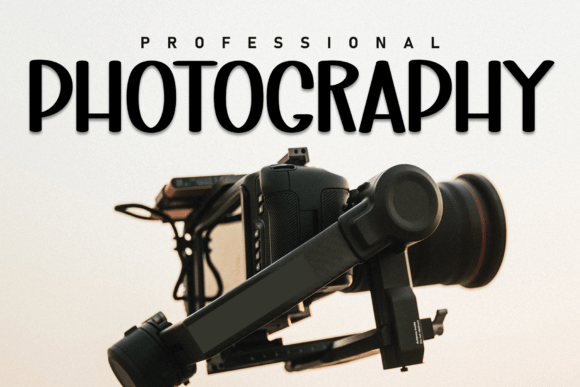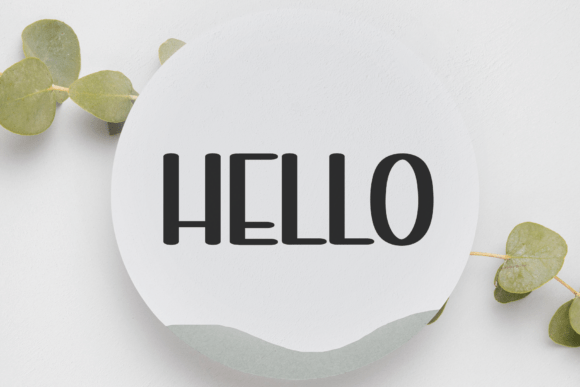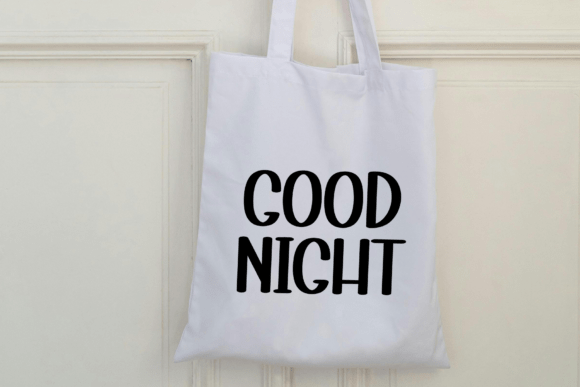
Banana Farmhouse Font
Banana Farmhouse is a handwritten font that looks like it was drawn with a marker. Having a relaxed and sporty feel, it is very suitable for branding, logos, wedding supplies, greeting cards, fashion, lookbooks, marketing promotions, and whenever you want your design to look luxurious and elegant but still casual.